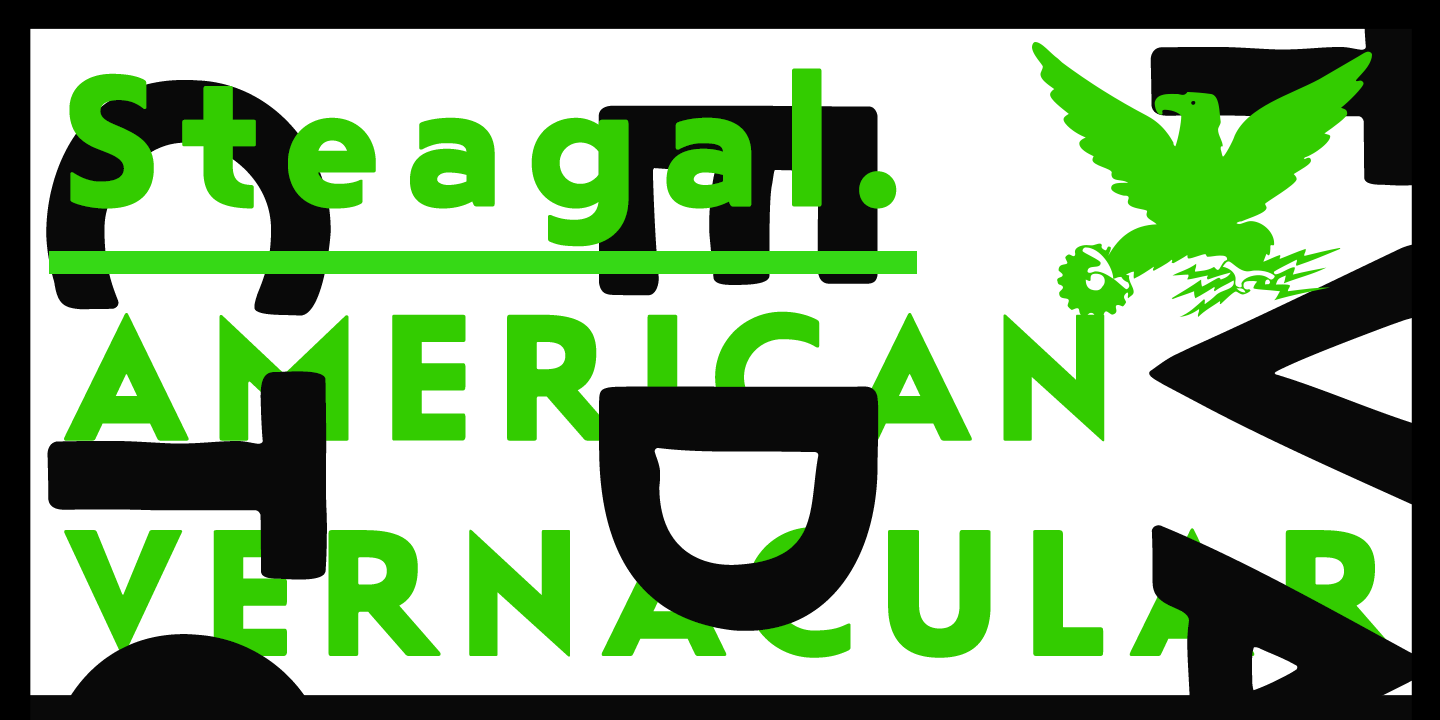
Steagal Font is perfect for legal firm branding, corporate law presentations, judicial document layouts, professional attorney logos, courtroom graphics, legal service marketing, and authoritative institutional communications.
What makes Steagal Font exciting is its judicial authority and legal sophistication, featuring dignified letterforms that capture the essence of legal gravitas while delivering exceptional professionalism and institutional credibility.
The Steagal Font family includes Light, Regular, Medium, Bold, and Black weights, plus condensed variants and legal alternates that enhance the font's authoritative character and professional possibilities.
Steagal Font Free Download embodies the pinnacle of legal authority and judicial sophistication through distinguished typography design. This authoritative typeface represents the dignity and gravitas of the legal profession, creating a commanding visual language that speaks to legal professionals and institutional clients who value jurisprudential excellence, professional integrity, and the respected tradition of legal practice. The font's authoritative character and judicial appearance make it ideal for law firms, legal institutions, and professional services that want to communicate competence, trustworthiness, and the distinguished credibility of legal expertise.
Legal firms and judicial institutions consistently select Steagal Font for projects that require authentic legal credibility and authoritative visual appeal. The typeface's dignified construction and professional personality make it exceptionally effective for law offices, court systems, and legal organizations where authority and professional respectability are paramount. Each character has been crafted with judicial precision to ensure maximum credibility across all legal applications and professional environments.
The legal advantages of Steagal Font extend beyond its authoritative appeal to include practical functionality for diverse legal applications. The font maintains exceptional legibility in complex legal documents while delivering the distinctive character that creates trustworthy professional experiences and connects with clients seeking reliable legal representation. Its comprehensive character set includes legal symbols and professional elements that make it particularly suitable for legal documentation and judicial communication.
Law firms, legal institutions, and professional service organizations frequently choose Steagal Font because of its ability to instantly convey legal expertise and professional authority. The typeface's judicial aesthetic helps establish credibility in competitive legal markets while appealing to clients who value professional competence, legal integrity, and the reliable representation that comes from established legal practice and respected judicial authority.